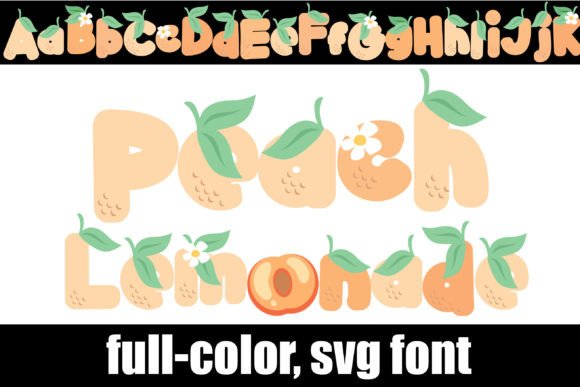
**Peach Lemonade Font: The Perfect Touch of Summer Vibes for Your Designs**
Escape to a world of vibrant colors and cheerful designs with Peach Lemonade Font, the ultimate font family for summer. This unique font, brought to life by the talented team at Illustration Ink, captures the essence of summer with its playful citrus-like lettering in a delightful shade of peach.
**A Splash of Color for Your Creative Endeavors**
With Peach Lemonade Font, you can add a pop of color to any project, from playful invitations and greeting cards to eye-catching social media posts and website designs. The full-color OpenType SVG font seamlessly integrates with various programs, including Adobe products, Silhouette Studio, Quark, and Inkscape. Let your imagination run wild as you create stunning designs that exude a summery charm.
**Endless Possibilities for Creative Expression**
Peach Lemonade Font's versatility extends beyond its vibrant hue. This font family offers a wide range of creative possibilities, allowing you to craft anything from simple text logos to intricate illustrations. Its vector-based nature ensures that your creations remain crisp and clear even when scaled to larger sizes, making it the perfect choice for large-format prints, posters, and banners.
**Bring Your Designs to Life with Peach Lemonade Font**